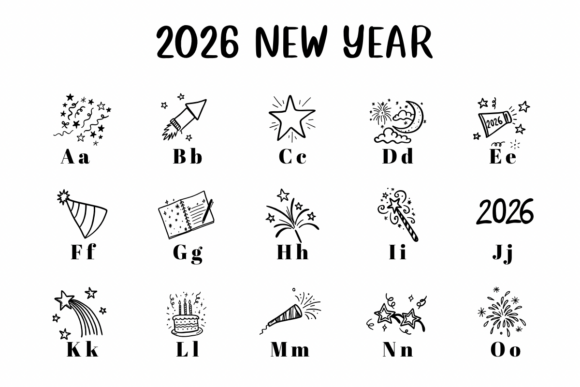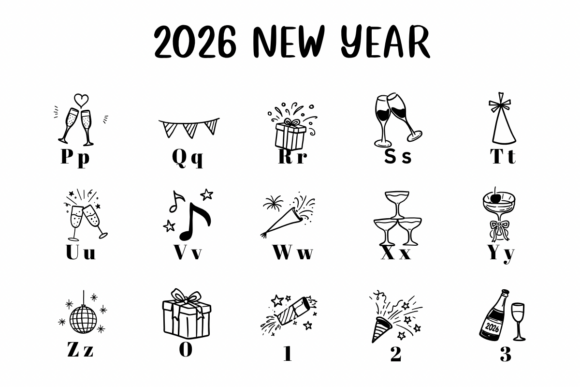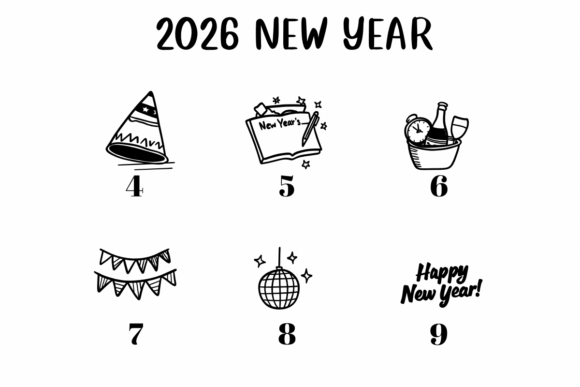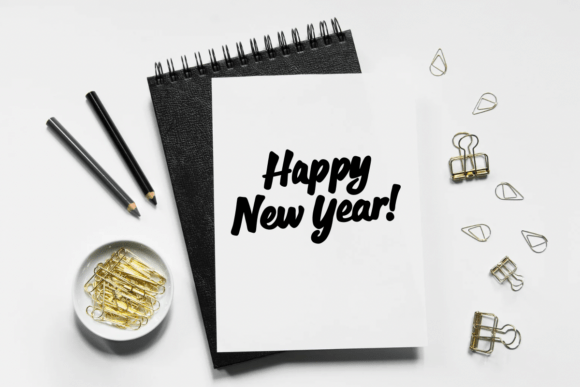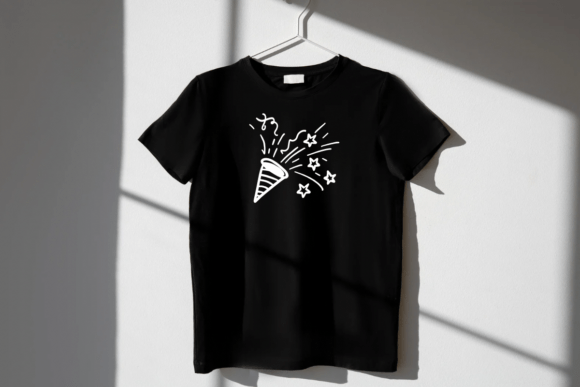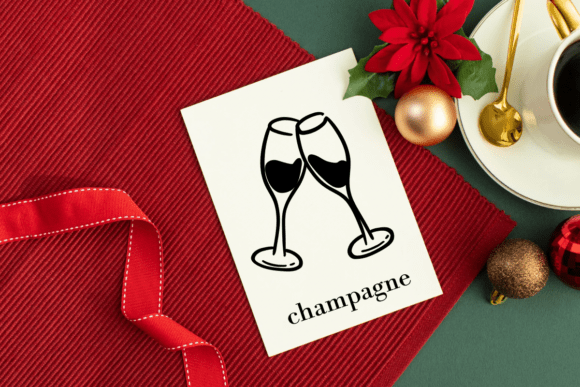
Ring in the New Year with Style: A Comprehensive Guide to the 2026 New Year Font
As a designer, I still remember the last time I was working on a New Year’s Eve invitation project, struggling to find the perfect font that would capture the celebratory spirit. My client wanted something vibrant, fun, and festive, but I was coming up empty-handed. That’s when I stumbled upon the 2026 New Year font, and it instantly became a game-changer for my design workflow. In this article, I’ll share my experience with this fantastic dingbats typeface and provide a comprehensive guide on how to make the most of it.
What Makes the 2026 New Year Font Special?
The 2026 New Year font is a vibrant and celebratory dingbats typeface designed to kick off the festivities with style. This font is packed with hand-drawn holiday icons, ranging from champagne bottles and party hats to magical stars and festive fireworks.
• ✨ Vibrant and Celebratory: The font is designed to bring a sense of joy and anticipation to any seasonal design.
• ✅ Easy to Use: The 2026 New Year font is incredibly easy to use, even for those who are new to working with dingbats or glyphs.
• 🎉 Festive Icons: The font comes with a wide range of hand-drawn holiday icons that can add a touch of whimsy to any design.
• 🤔 Limited Character Set: As a dingbats font, the 2026 New Year font has a limited character set compared to traditional fonts. This means you’ll need to explore the glyphs and stylistic alternates to get the most out of it.
• ⚠️ Requires Some Learning Curve: While the font is easy to use, mastering its OpenType features and glyphs may take some time, especially for those new to working with dingbats.
The Story Behind the 2026 New Year Font
The 2026 New Year font was designed with the goal of creating a fun and festive typeface that would capture the spirit of the New Year. The designer wanted to create a font that would allow users to add a touch of whimsy to their designs, making it perfect for creating custom planners, New Year’s Eve invitations, and festive decorative elements.
Font Name 2026 New Year Font
Author CHANOK
Q: What type of designs is the 2026 New Year font best suited for?
Q: Are there any limitations to using the 2026 New Year font?
A: As a dingbats font, the 2026 New Year font has a limited character set compared to traditional fonts. However, this limitation is easily overcome by exploring the glyphs and stylistic alternates.